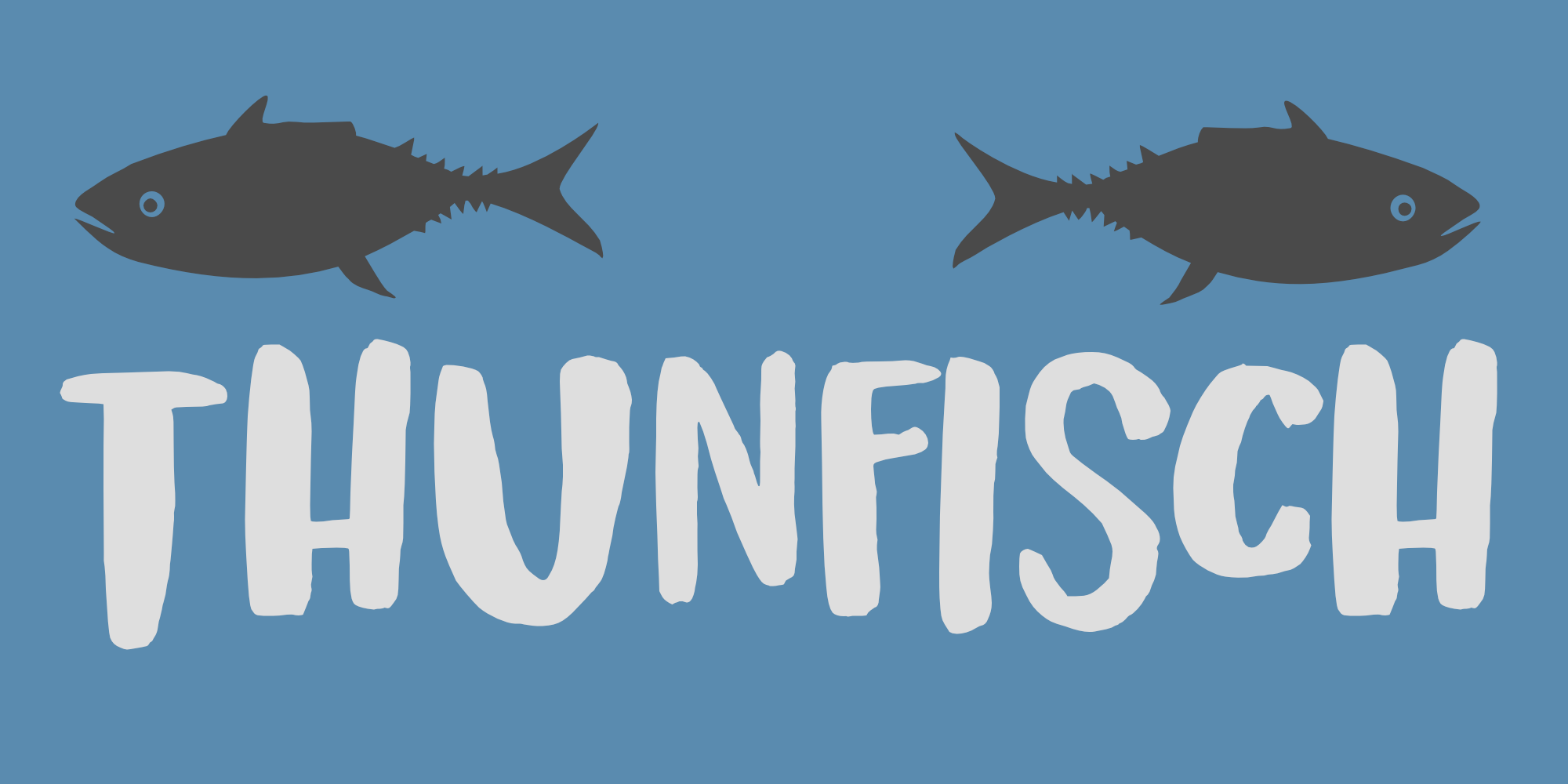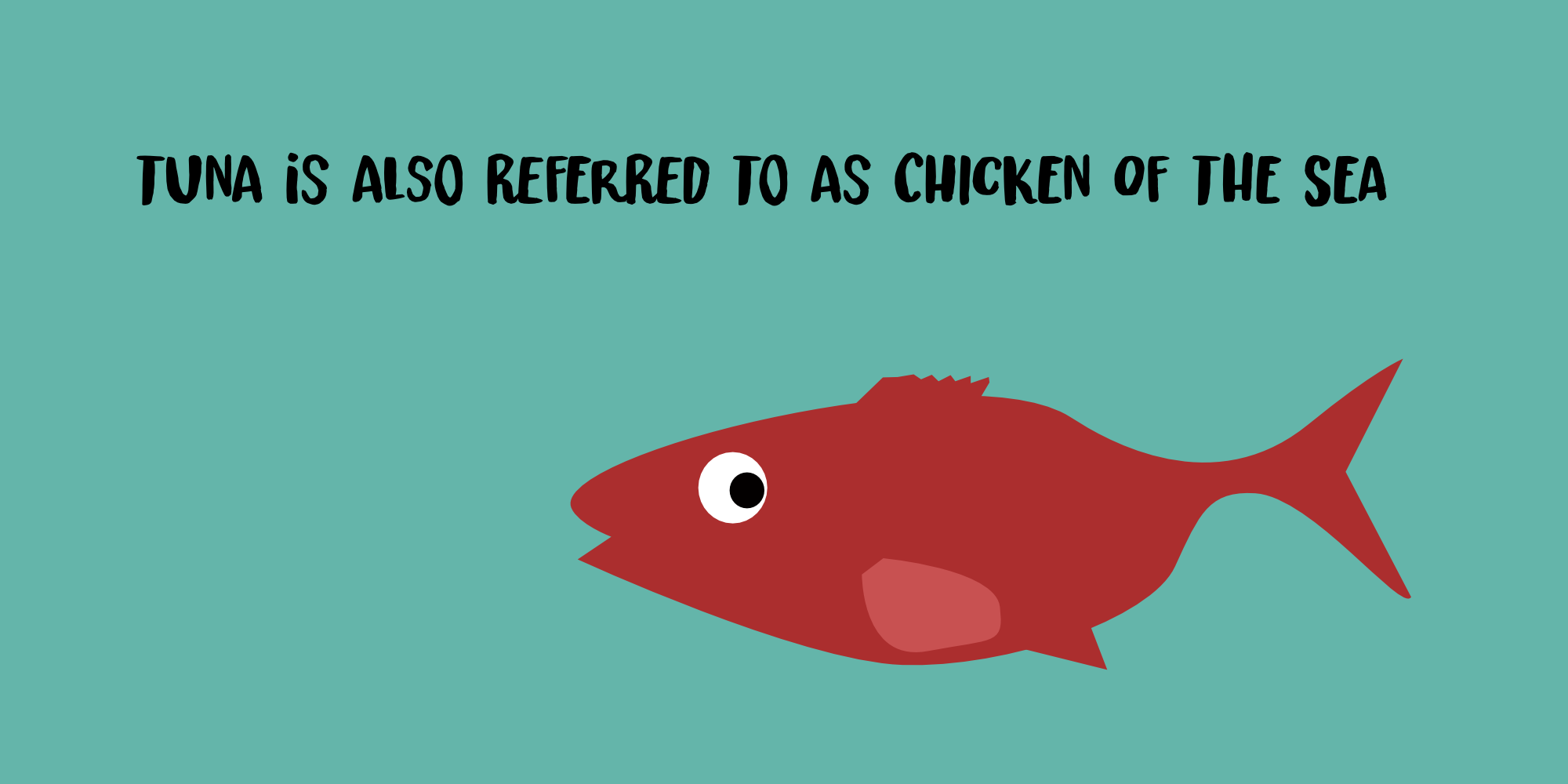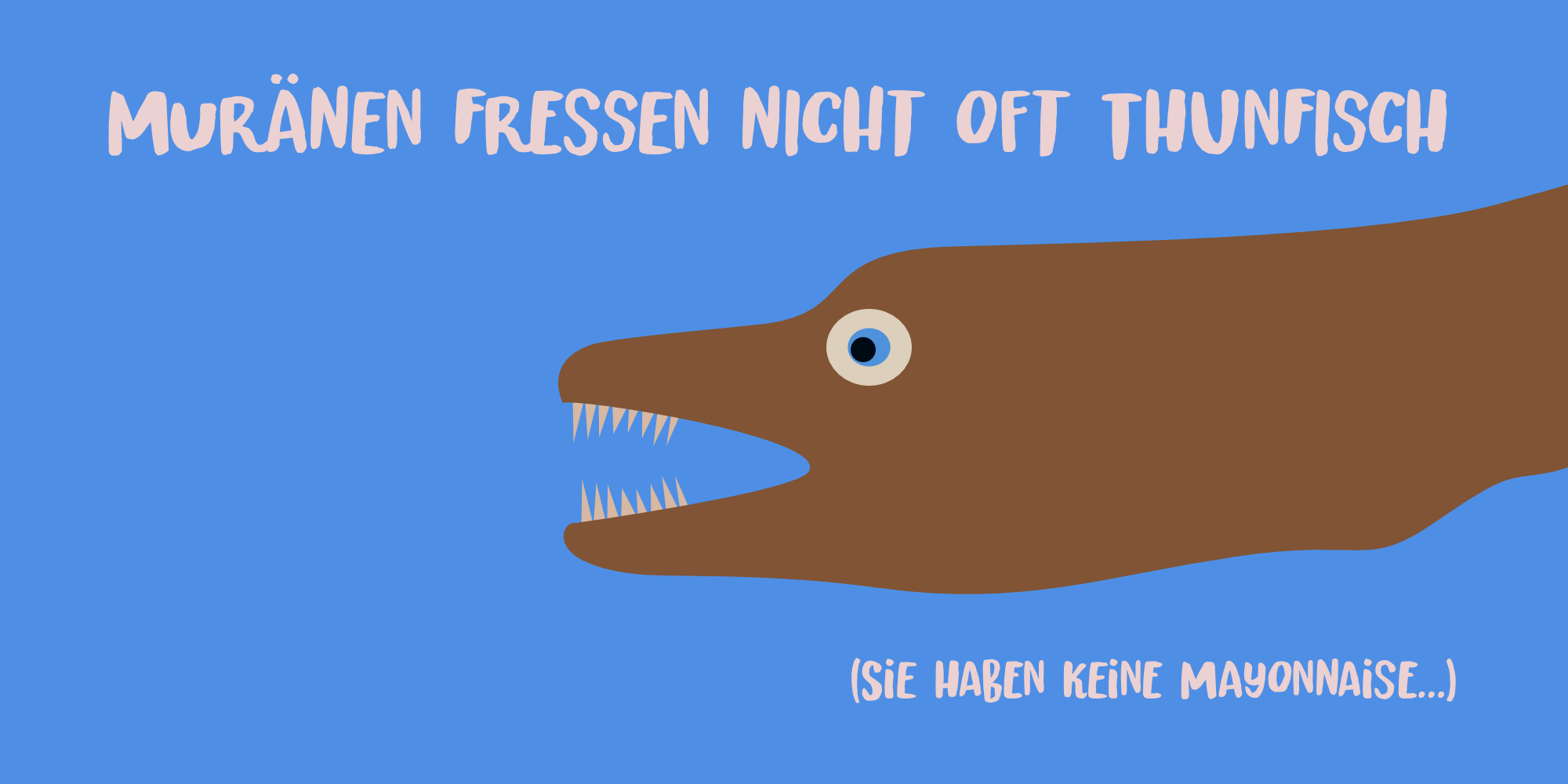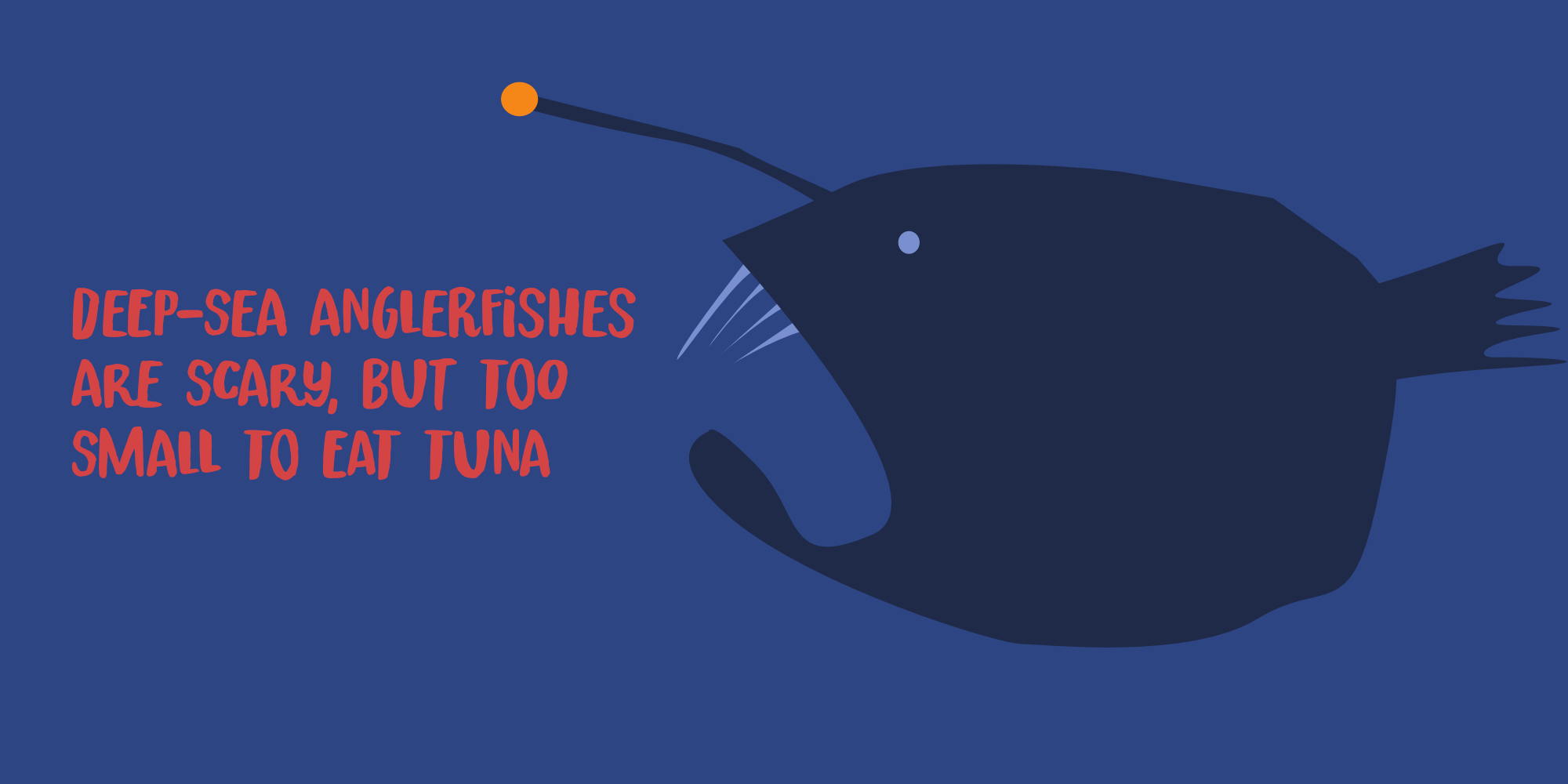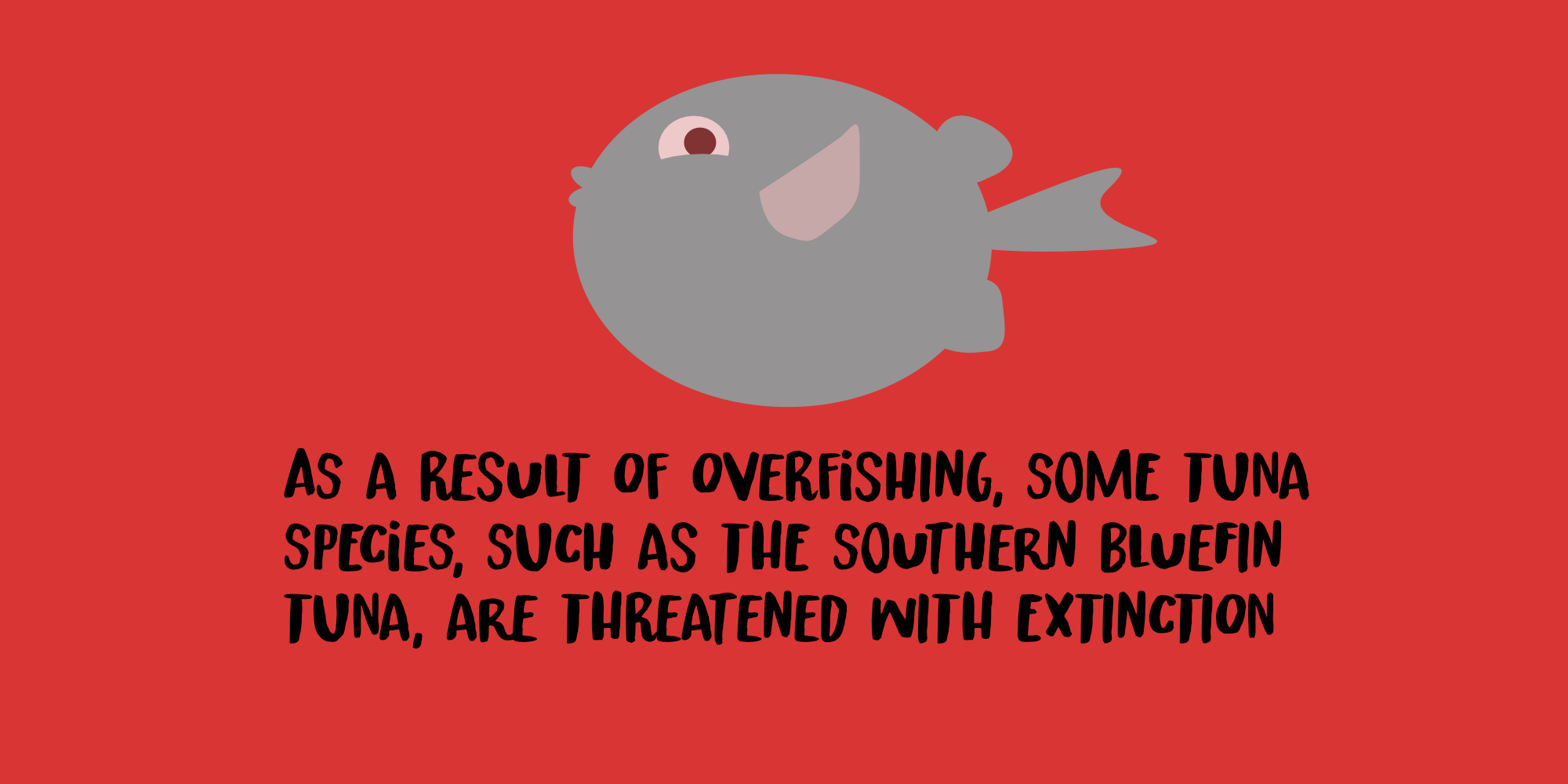
Thunfisch (2 fonts)
Well, ‘Thunfisch’ looks good. In Dutch, tuna is ‘Tonijn’ (a little boring) and in Japanese, Tuna is ‘Maguro’ - which is also slightly boring, so I settled for Thunfisch.
Thunfisch is a font I made with Chinese ink (tuna in Chinese is ??) and a small brush. It comes with extensive language support and a lovely set of auto-rotating alternates!